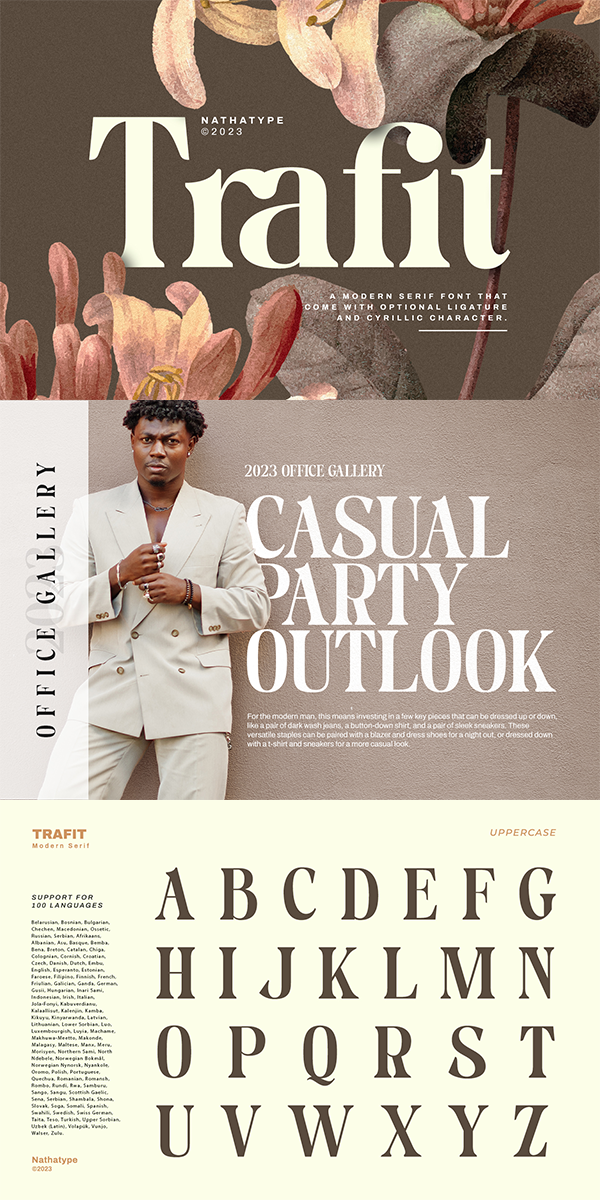
Trafit Font
About Trafit
This is Trafit, a perfect font to show luxury, class, and eternity. Trafit is an outstandingly designed stylish serif font. Its soft, clean lines and indentations show elegant impressions for your prominent designs. Its letter edges have hooks like the other serif fonts.